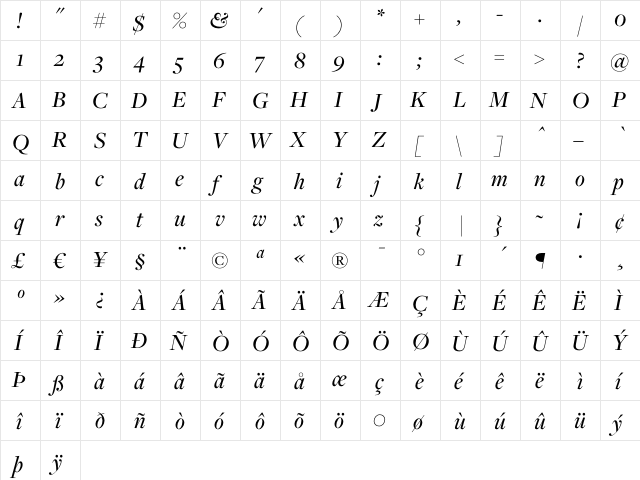
Freight Disp Medium Italic
Design Context for Freight Typeface
Freight takes a measured approach to typography — its balanced proportions and neutral character make it a reliable workhorse for both digital and print work. The slanted form adds forward momentum and visual energy.
Pro Tip: Use Freight for emphasis, pull quotes, and subheadings where its slanted energy can add rhythm to the layout.